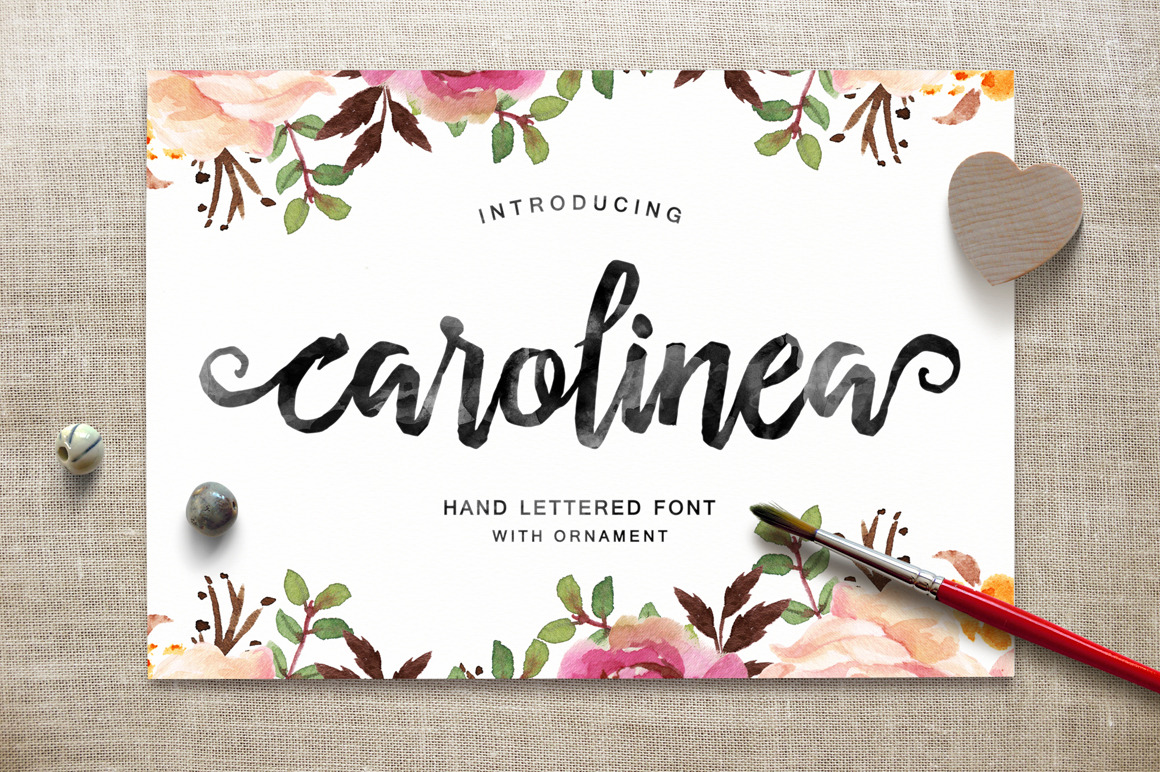
Carolinea Typeface
Carolinea is a hand lettered script fonts, using brush & ink combines a style brush calligraphy, irregular baseline, a rough edges, bold and organic. Carolinea features 235+ glyphs and 63 alternate characters. including initial and terminal letters, ornament, ligatures and multiple language support.
Can be used for various purposes such as posters, logos, t-shirt, signage, businnes card, magazines, book cover, wedding invitation, greeting cards etc. To enable the OpenType Stylistic alternates, you need a program that supports OpenType features such as Adobe Illustrator CS, Adobe Indesign & CorelDraw X6-X7.